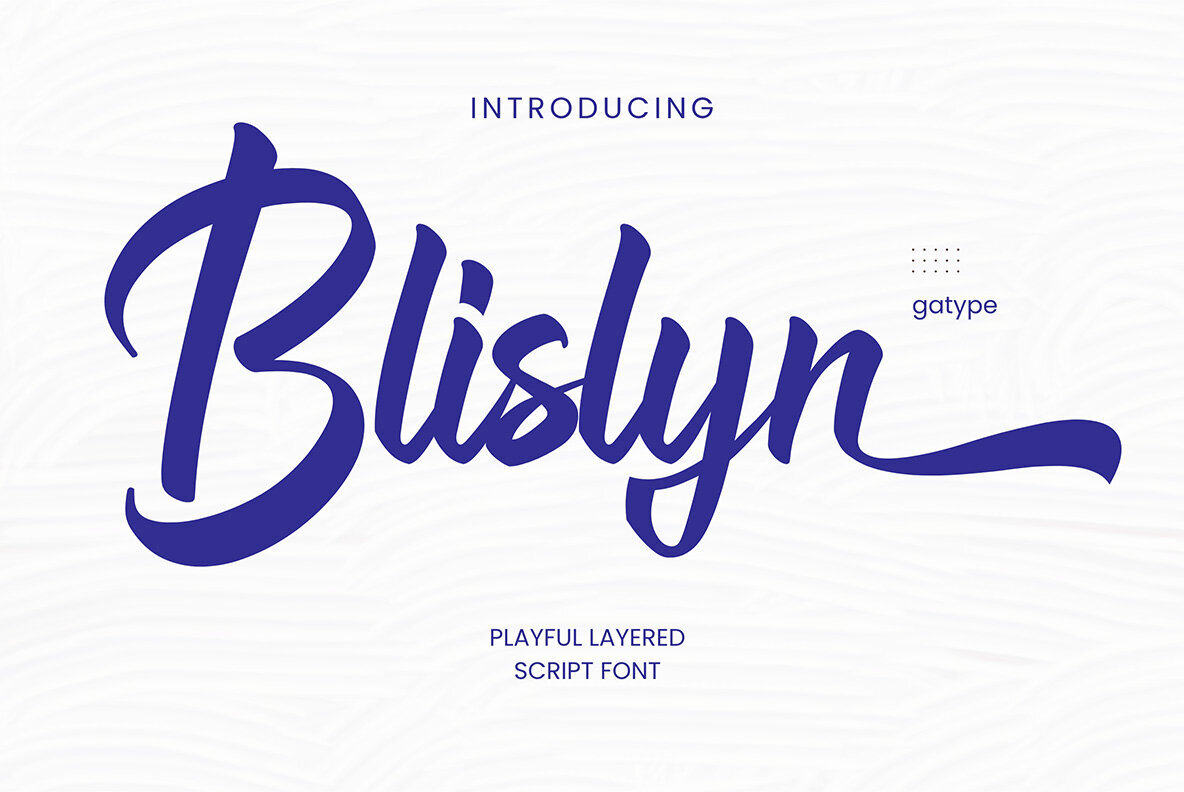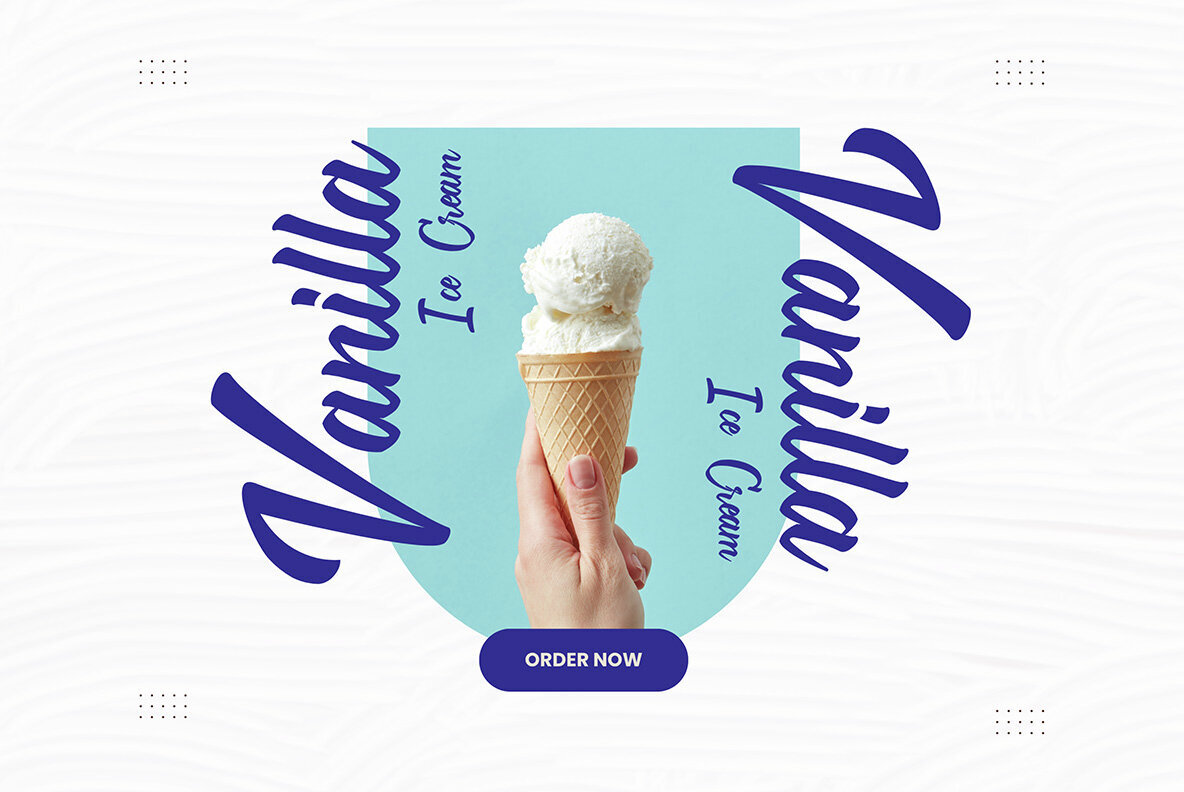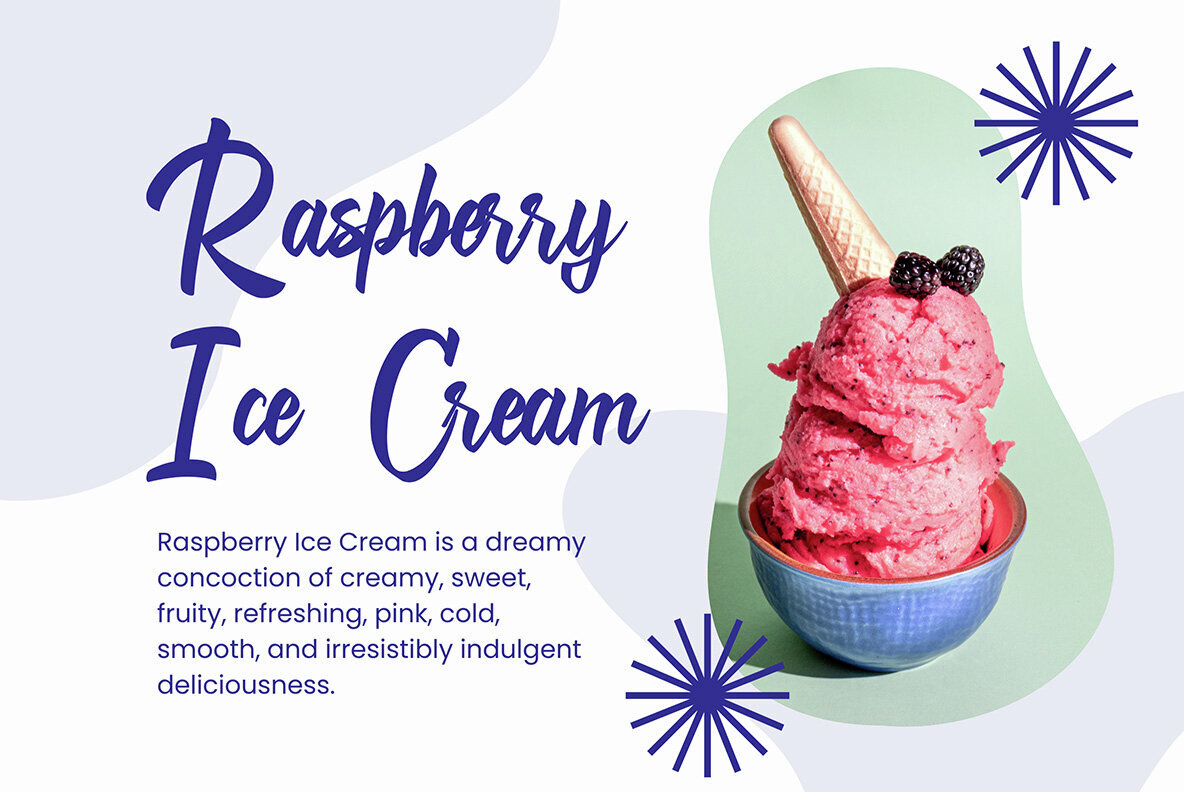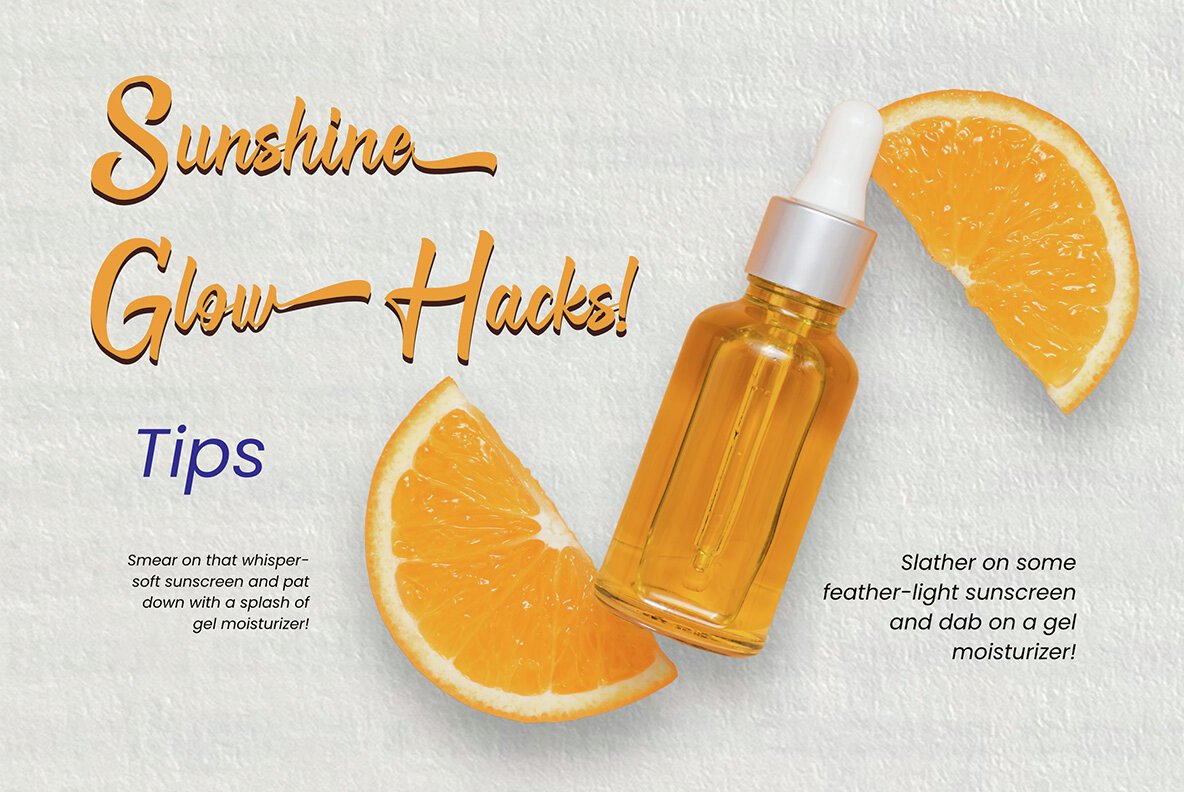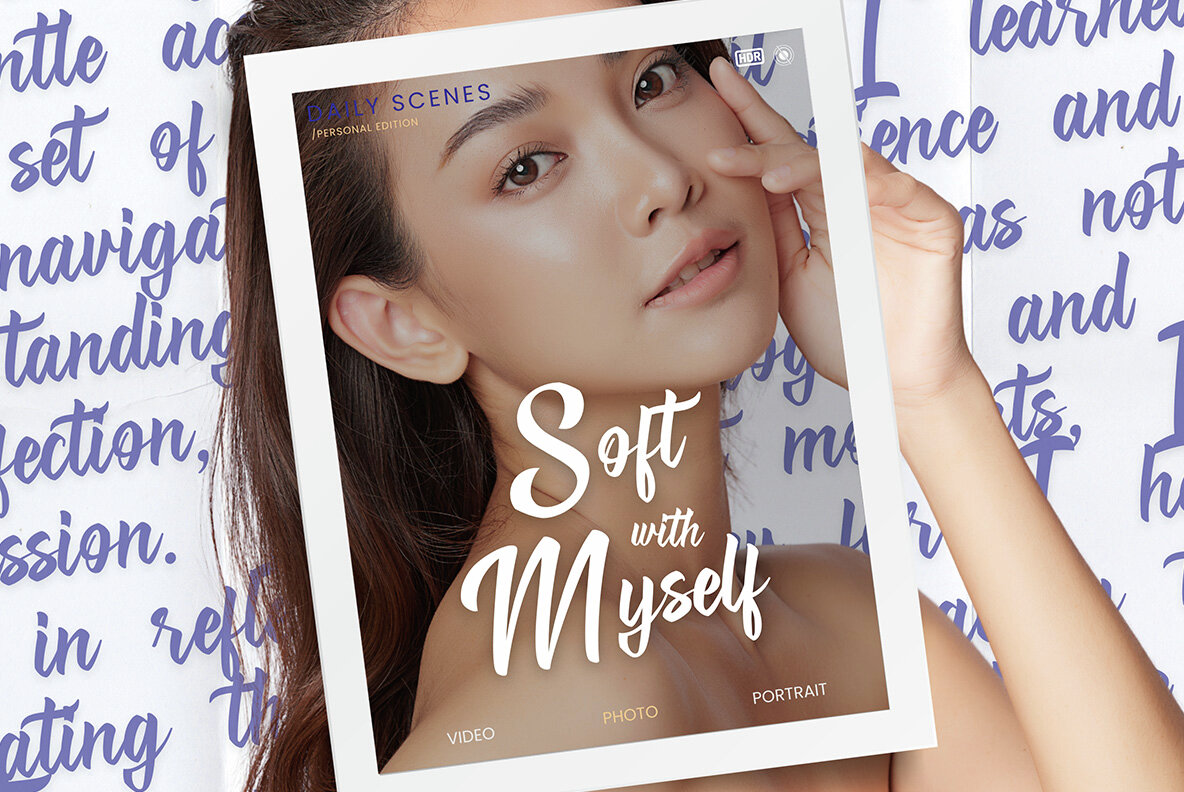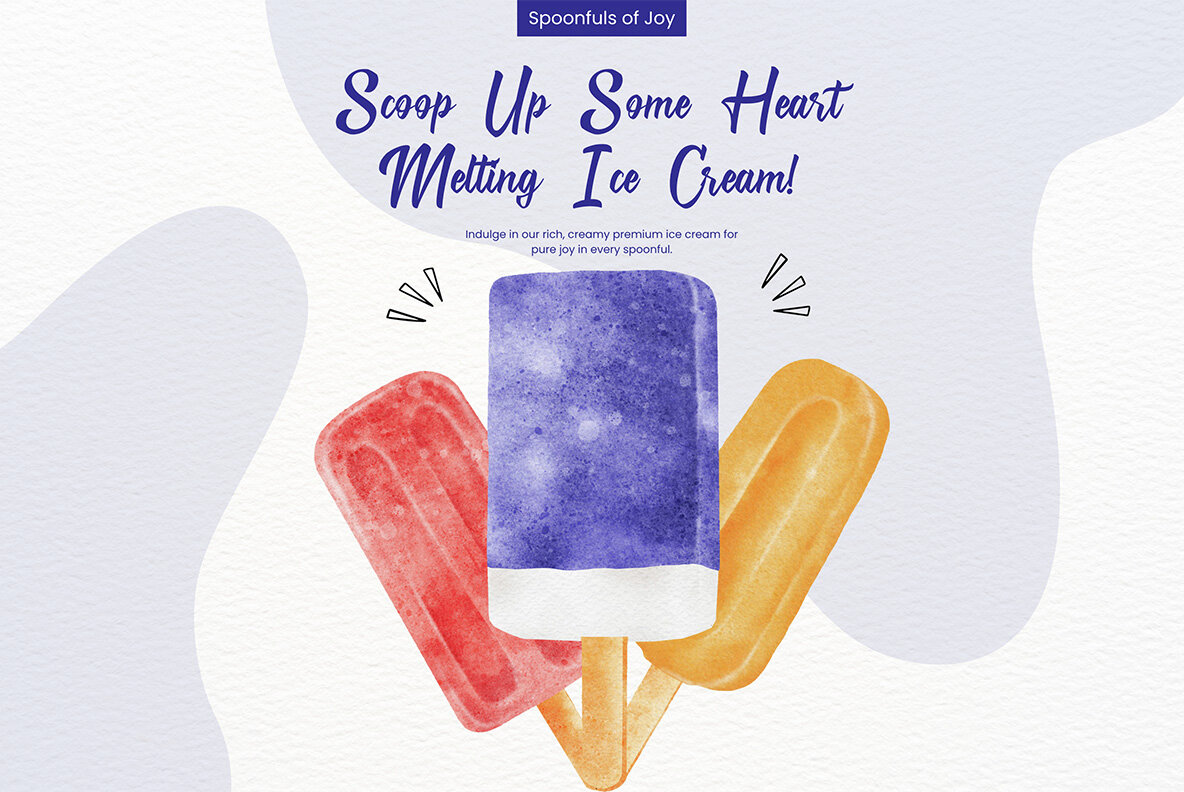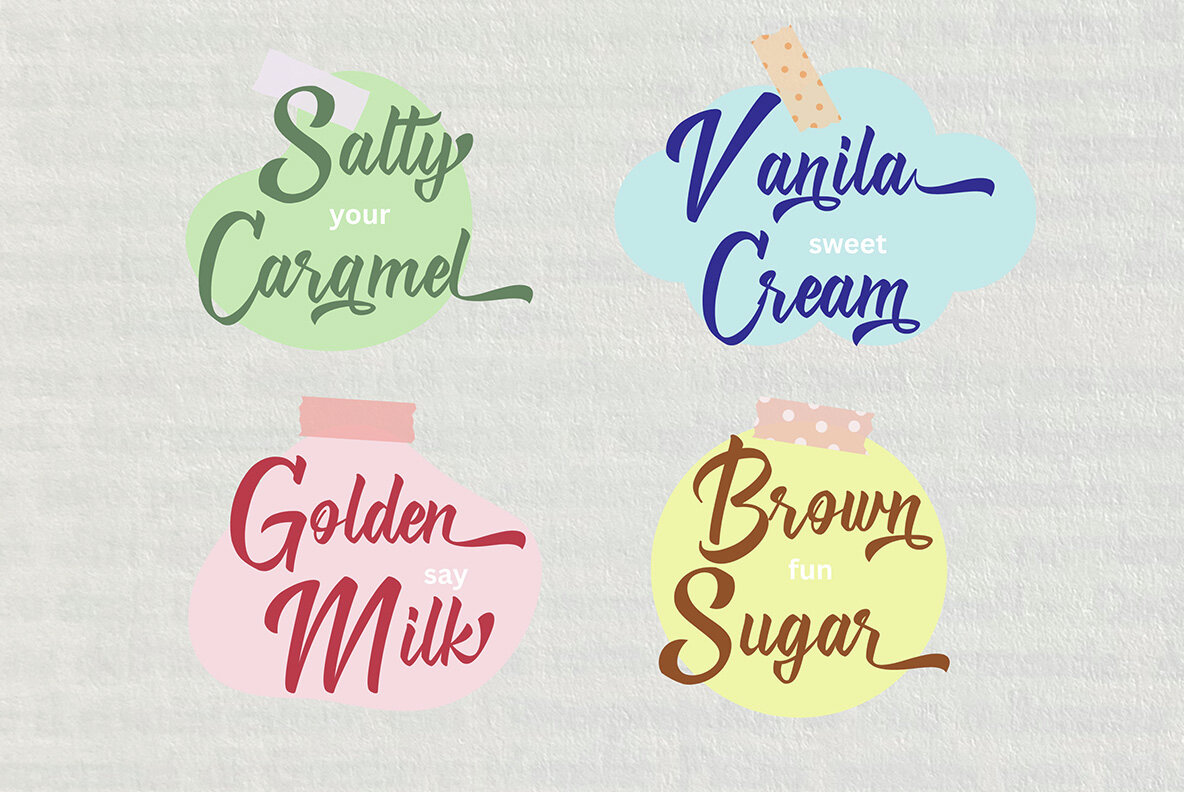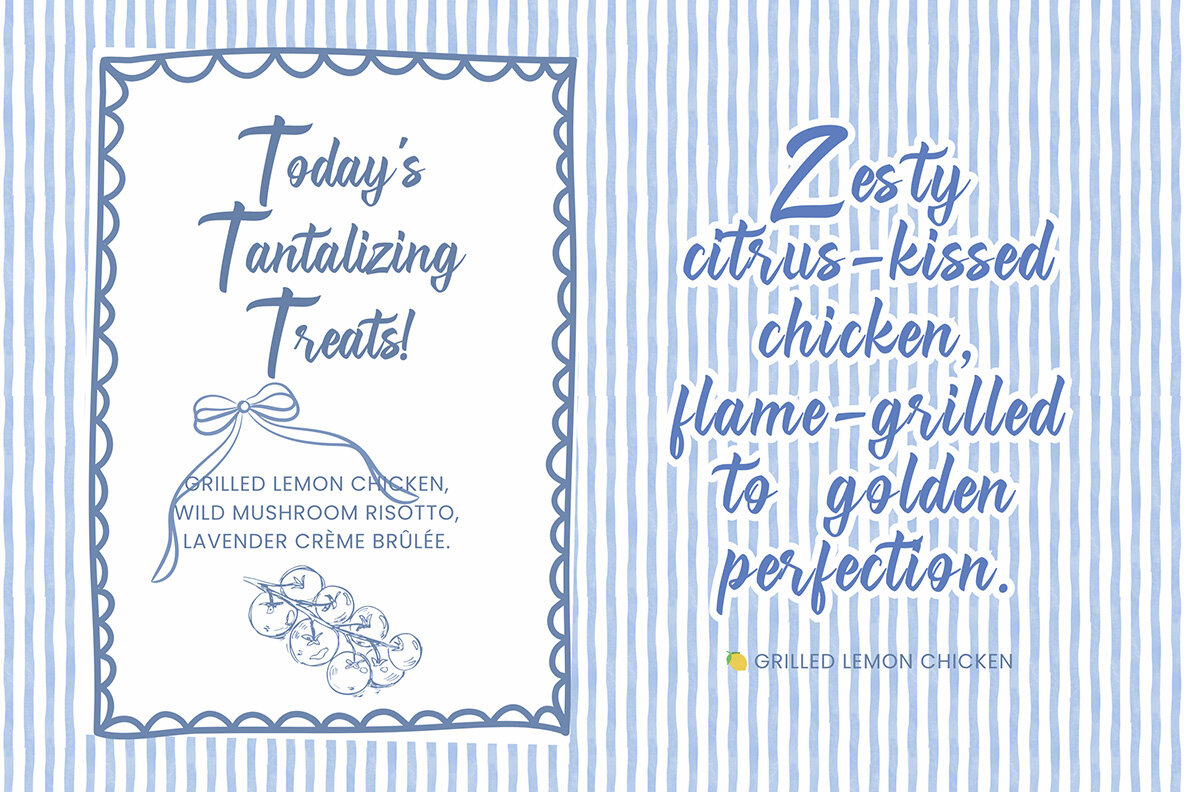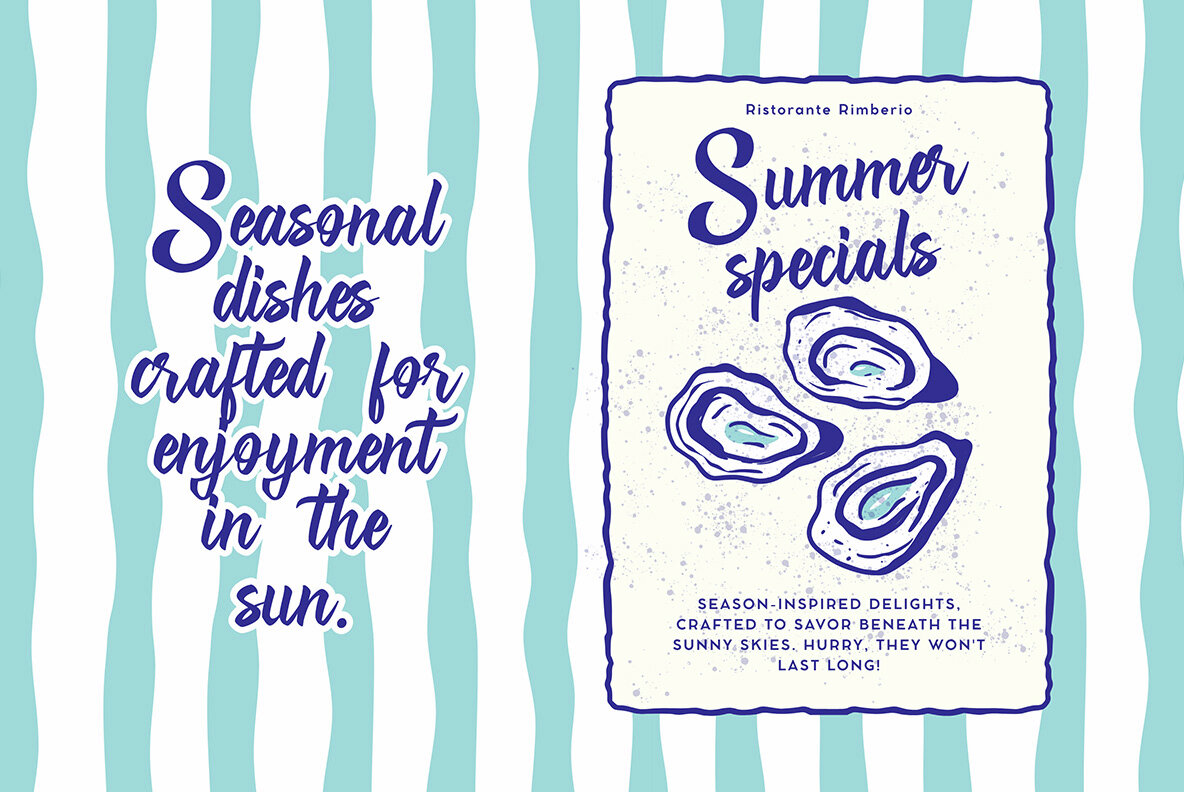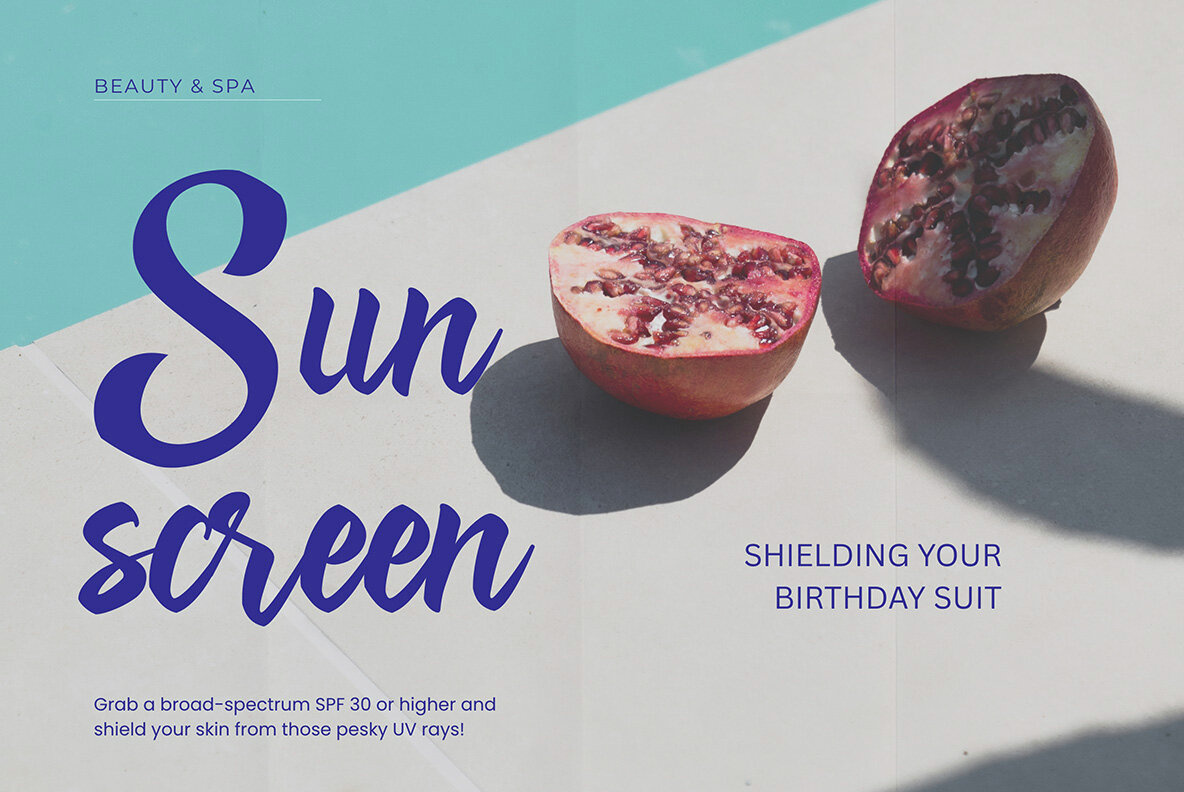
Blislyn Font
Infuse your text with personality and charm using Blislyn, a delightful layered script font. With seamless curves and animated swashes, Blislyn offers stackable layers that lend themselves to vibrant titles, eye-catching logos, and joyful design elements. It's the perfect choice for playful branding, sweet packaging, and any project that craves a touch of fun.Discover Blislyn: A Playful Layered Script Font